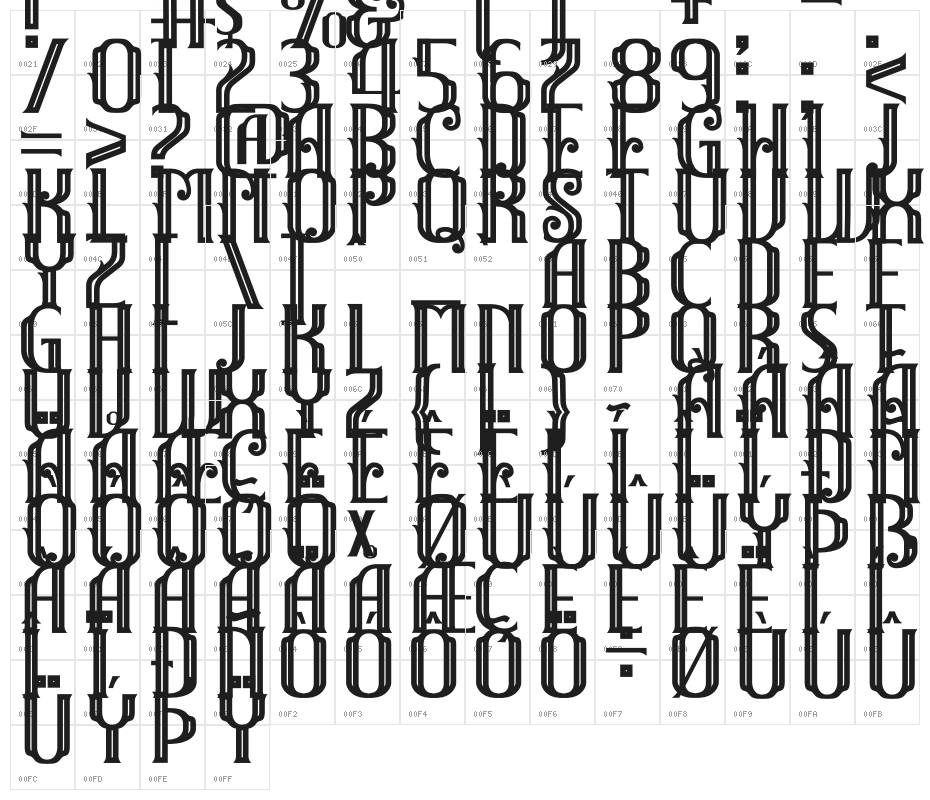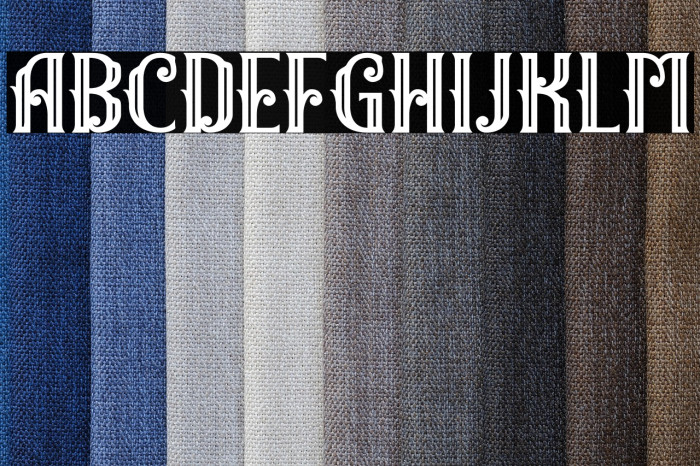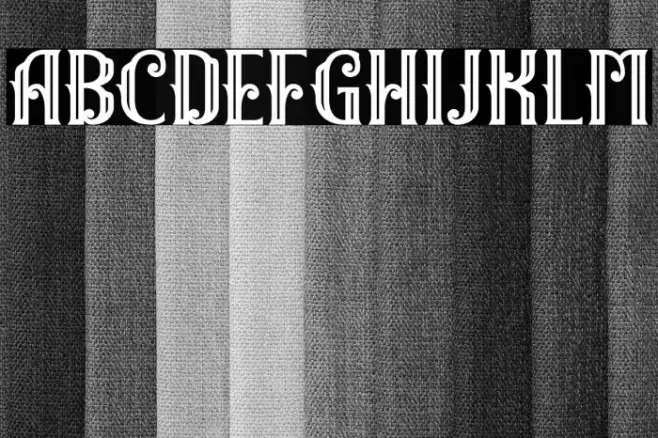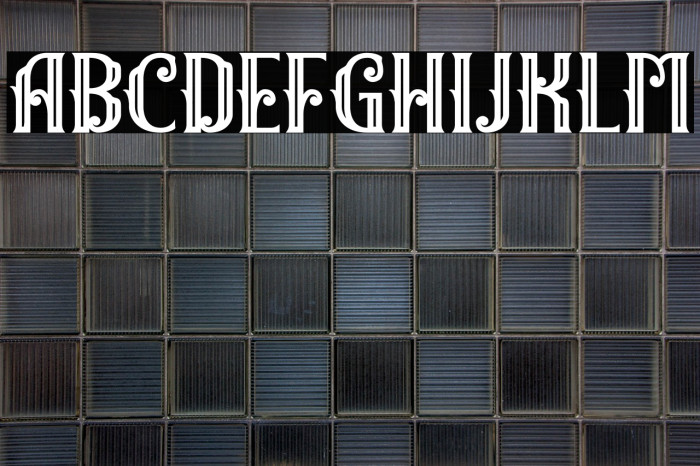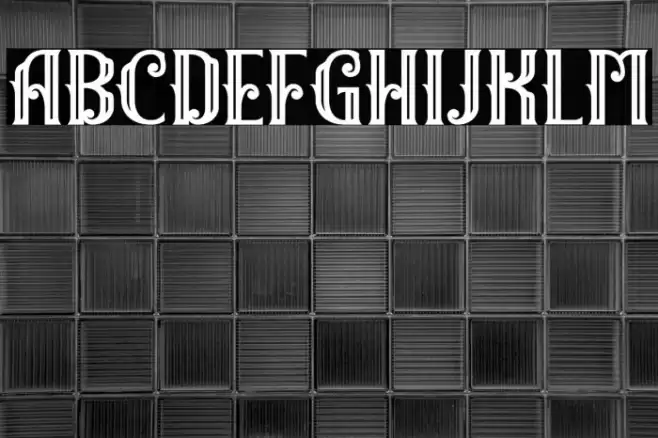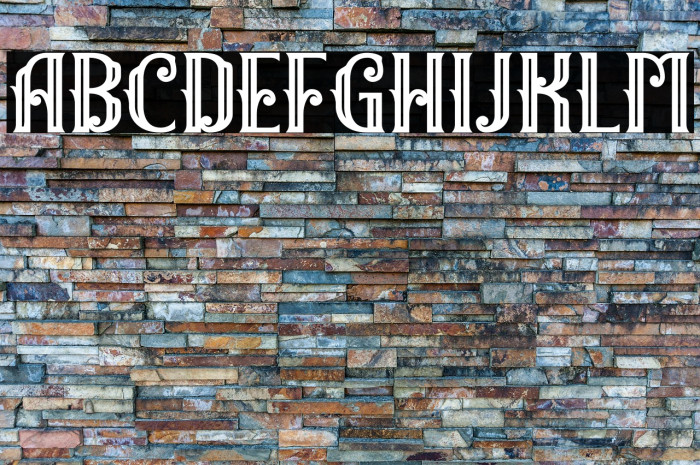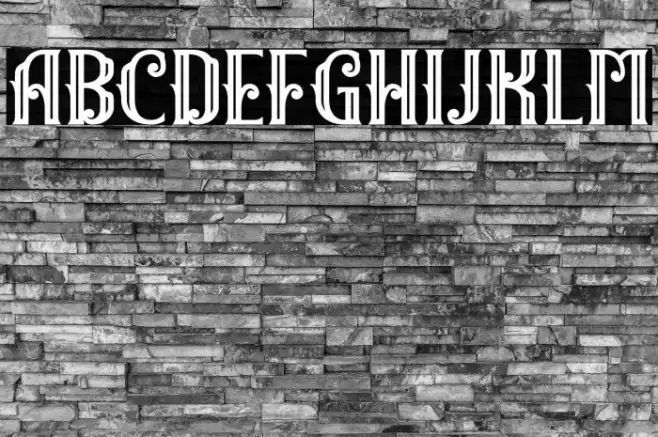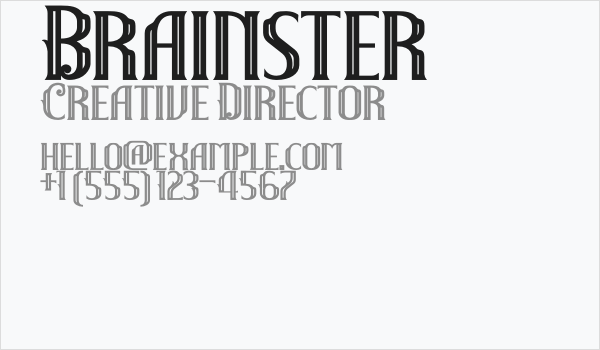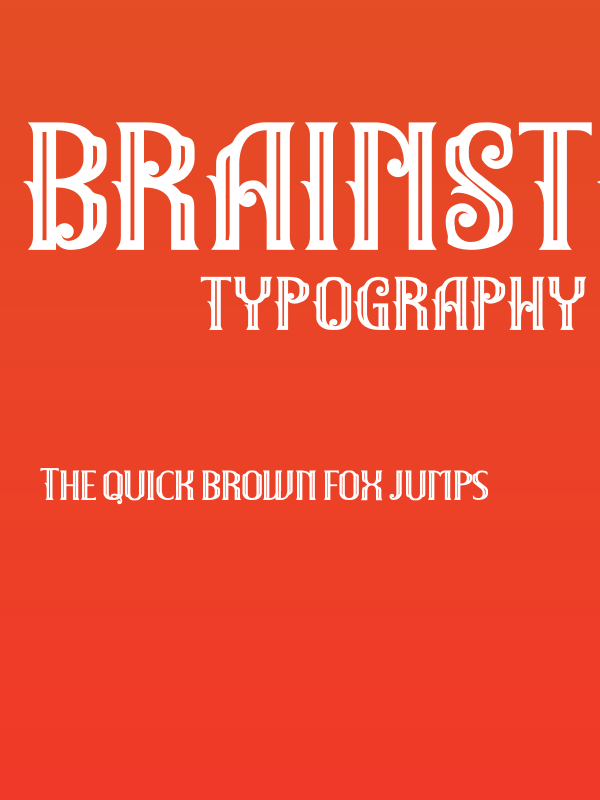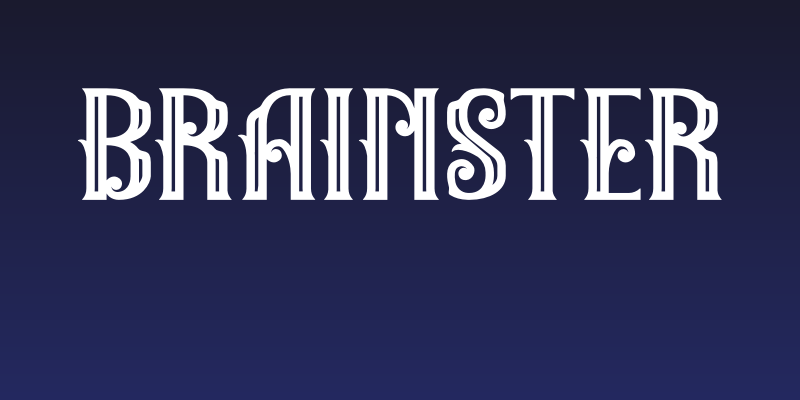
Brainster Font
Brainster Description
This font features a bold and decorative style with a unique blend of modern and vintage elements. The uppercase letters are characterized by their intricate, geometric shapes with sharp angles and distinct serifs, giving them a striking appearance. The lowercase letters maintain a consistent style, complementing the uppercase with their own set of decorative elements. Numbers and special characters follow the same design principles, ensuring a cohesive look across all glyphs. The font's high contrast between thick and thin strokes adds to its dramatic flair, making it ideal for attention-grabbing designs.
| Overall Style | Modern, Vintage |
| Proposed Projects | Ideal for branding, poster design, headlines, and any project requiring a bold, eye-catching typeface. |